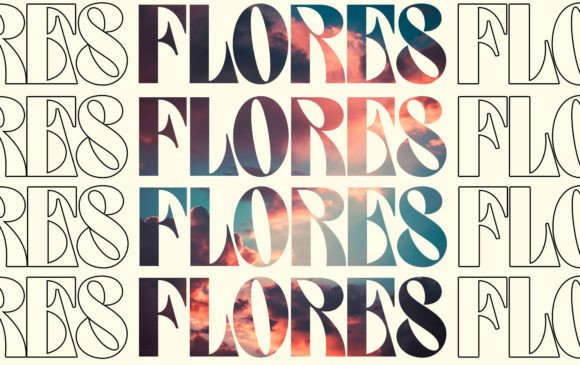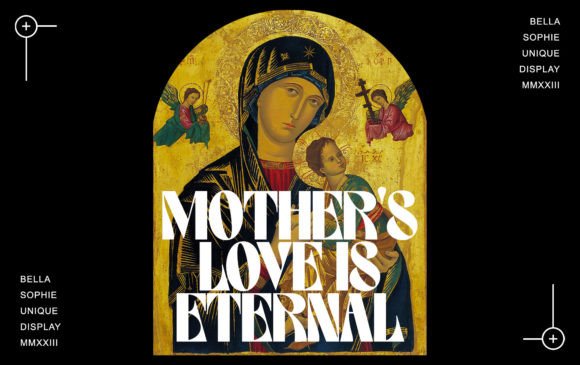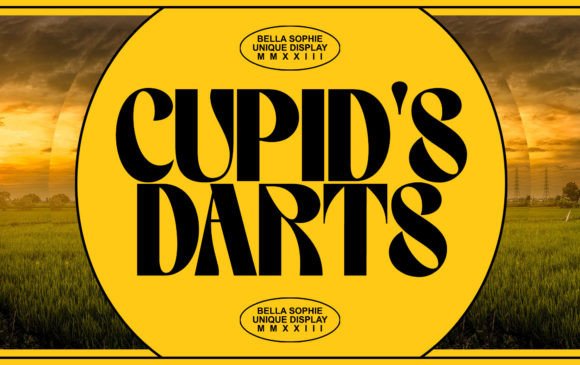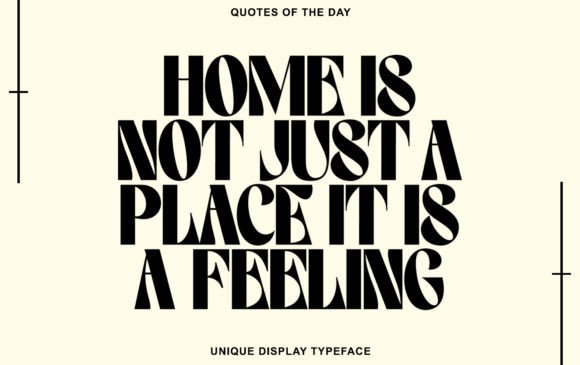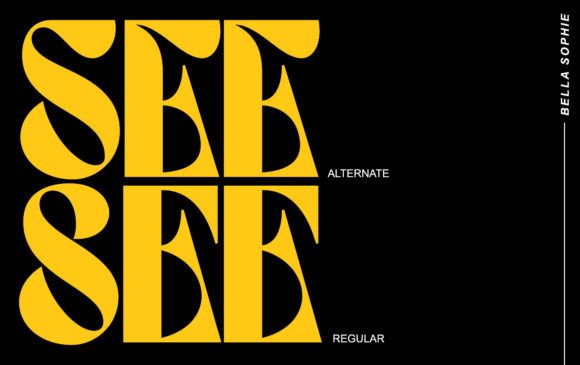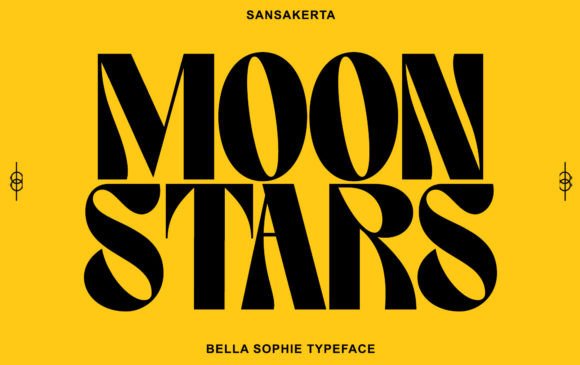
Introducing Bella Sophie Font: The Perfect Blend of Strength and Style
In the world of typography, fonts play a crucial role in conveying messages, expressing emotions, and creating lasting impressions. For designers and crafters, finding the right font can make all the difference in bringing their creative visions to life. This is where Bella Sophie Font comes in – a stunning typeface that seamlessly blends strength and style, making it an ideal choice for a wide range of design projects.
The Power of Bella Sophie Font
Bella Sophie Font is a bold and assertive typeface that commands attention. Its robust letterforms exude confidence and make a powerful statement, perfect for headlines, logos, and branding projects. The font’s strong personality is balanced by its elegant and sophisticated curves, adding a touch of refinement to any design. This harmonious blend of strength and style makes Bella Sophie Font an incredibly versatile typeface that can be used in various contexts.
Key Features of Bella Sophie Font
- Bold and Assertive: Bella Sophie Font features bold and assertive letterforms that grab attention and make a lasting impression.
- Elegant and Sophisticated: The font’s elegant and sophisticated curves add a touch of refinement to any design, making it perfect for high-end branding and luxury projects.
- Versatile: Bella Sophie Font can be used for a wide range of design projects, from headlines and logos to branding and advertising materials.
- Highly Legible: The font’s clear and concise letterforms ensure high legibility, even at smaller font sizes.
Why Choose Bella Sophie Font?
With so many fonts available, why choose Bella Sophie Font? Here are a few compelling reasons:
- Unique Personality: Bella Sophie Font has a distinct personality that sets it apart from other typefaces. Its bold and elegant design makes it perfect for designers looking to create a lasting impression.
- Flexibility: The font’s versatility makes it suitable for various design projects, from print materials to digital applications.
- Timeless Design: The font’s classic design ensures it will remain relevant for years to come, making it a valuable addition to any design library.
Using Bella Sophie Font in Your Designs
So, how can you incorporate Bella Sophie Font into your designs? Here are a few ideas to get you started:
- Headlines and Titles: Use Bella Sophie Font to create bold and attention-grabbing headlines that make a lasting impression.
- Logos and Branding: The font’s elegant and sophisticated curves make it perfect for logos and branding projects that require a touch of refinement.
- Advertising Materials: Bella Sophie Font is ideal for advertising materials, such as billboards, posters, and flyers, where bold and eye-catching typography is essential.
- Digital Applications: The font’s clear and concise letterforms make it suitable for digital applications, such as website headers, mobile apps, and social media graphics.
| Font Name | Bella Sophie Font |
In conclusion, Bella Sophie Font is a powerful and elegant typeface that effortlessly combines strength and style. Its bold and assertive letterforms command attention, while its elegant and sophisticated curves add a touch of refinement. Whether used for headlines, logos, or branding projects, Bella Sophie Font makes a powerful statement. Embrace its versatility and let your designs exude confidence and sophistication with Bella Sophie Font.